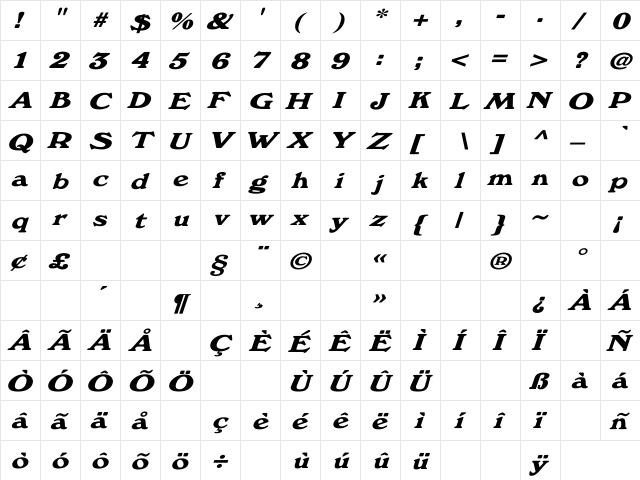
WindsorDemi.fog Wd Italic Regular Font Preview
WindsorDemi.fog Wd Italic Regular
WindsorDemi.fog Wd Italic Regular Font Details
Design Context for WindsorDemi.fog Wd Italic Typeface
WindsorDemi.fog Wd Italic offers clean, dependable letterforms without strong stylistic allegiance, making it a practical choice for designers who need flexibility. The slanted form adds forward momentum and visual energy.
Pro Tip: Try WindsorDemi.fog Wd Italic for annotation and caption copy alongside an upright companion — the contrast in angle creates a dynamic but ordered typographic system.